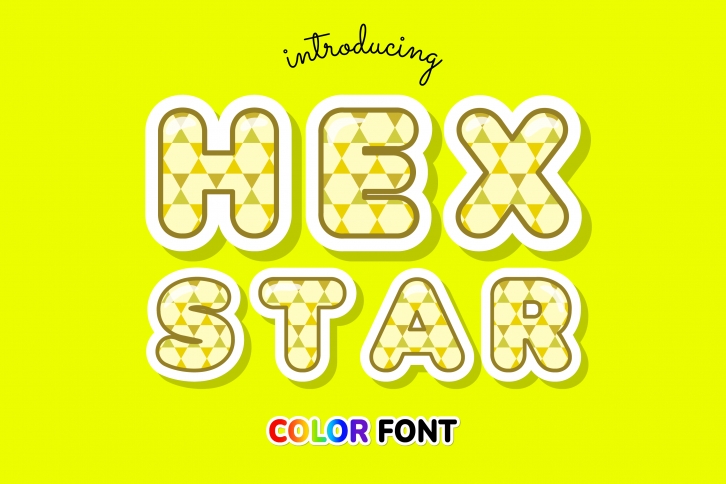
Hex Star is an incredibly cool color font. Whether you use it for custom designs, DIY crafts, or just any creation that requires a lovely touch, this font will be an amazing choice.